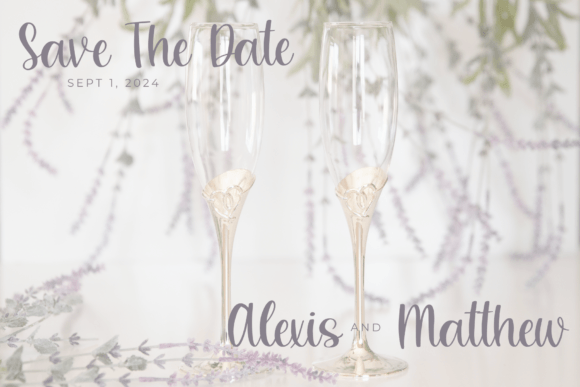
Wedding Serenade Font
This script font is both modern and exquisite, with graceful curves and fluid strokes that exude elegance and sophistication. Wedding Serenade is the perfect choice for luxurious branding, invitations, and editorial design, with a timeless style and attention to detail that elevates any project to a higher level of refinement. It is also PUA encoded which means you can access all of the glyphs and swashes with ease!